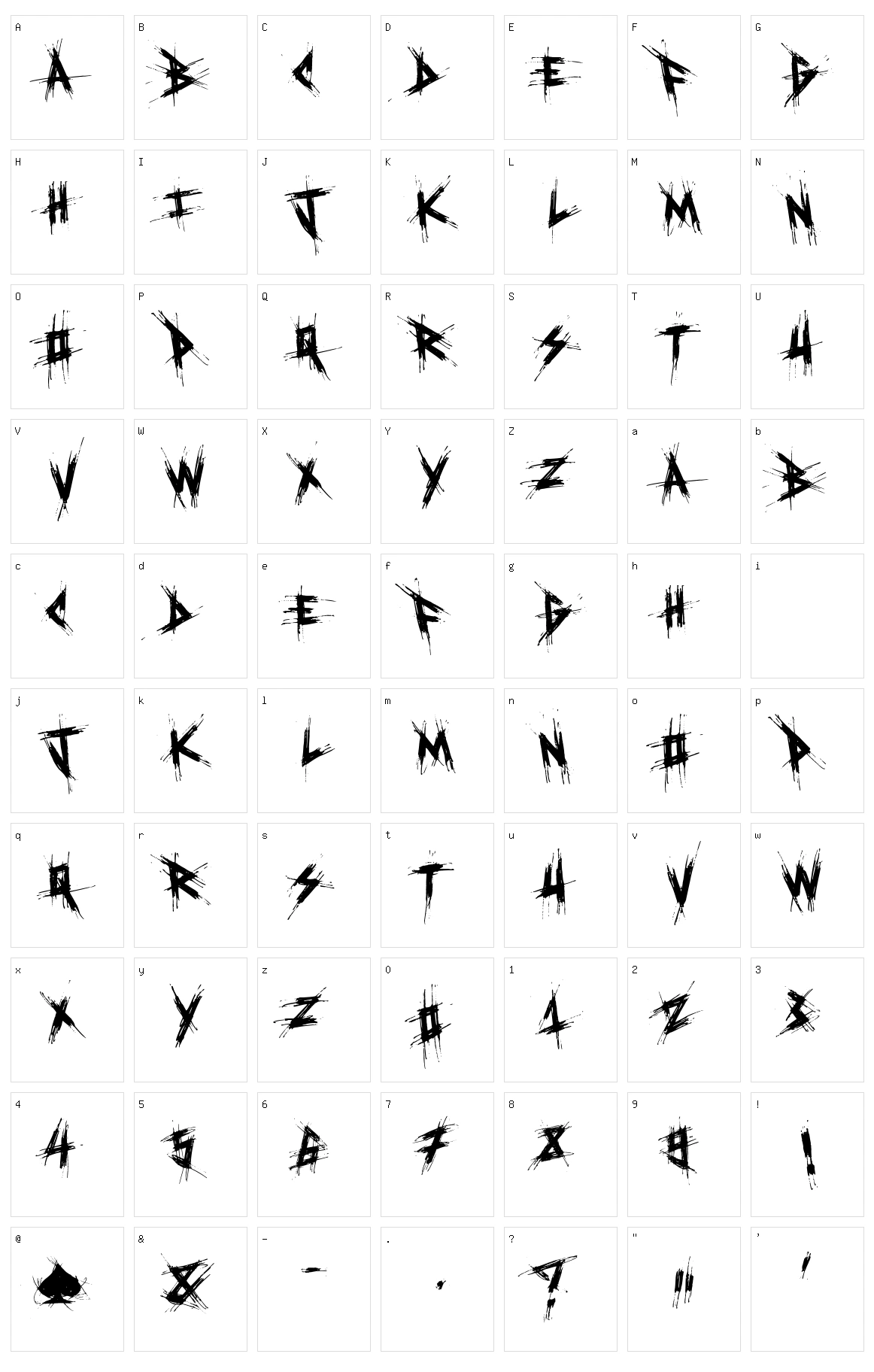
The free font El&Font Destroy! is carefully designed by J?r?me Delage, showcasing a thoughtful balance of creativity and usability and falls under the Trash font style. When you download the ZIP file, it contains only 1478.85 KB of font files, making it lightweight and quick to download. Please review the license details below to understand permitted usage and distribution rights. If license information is not available, we recommend using this font for personal projects only or contacting the author directly for commercial usage permissions.